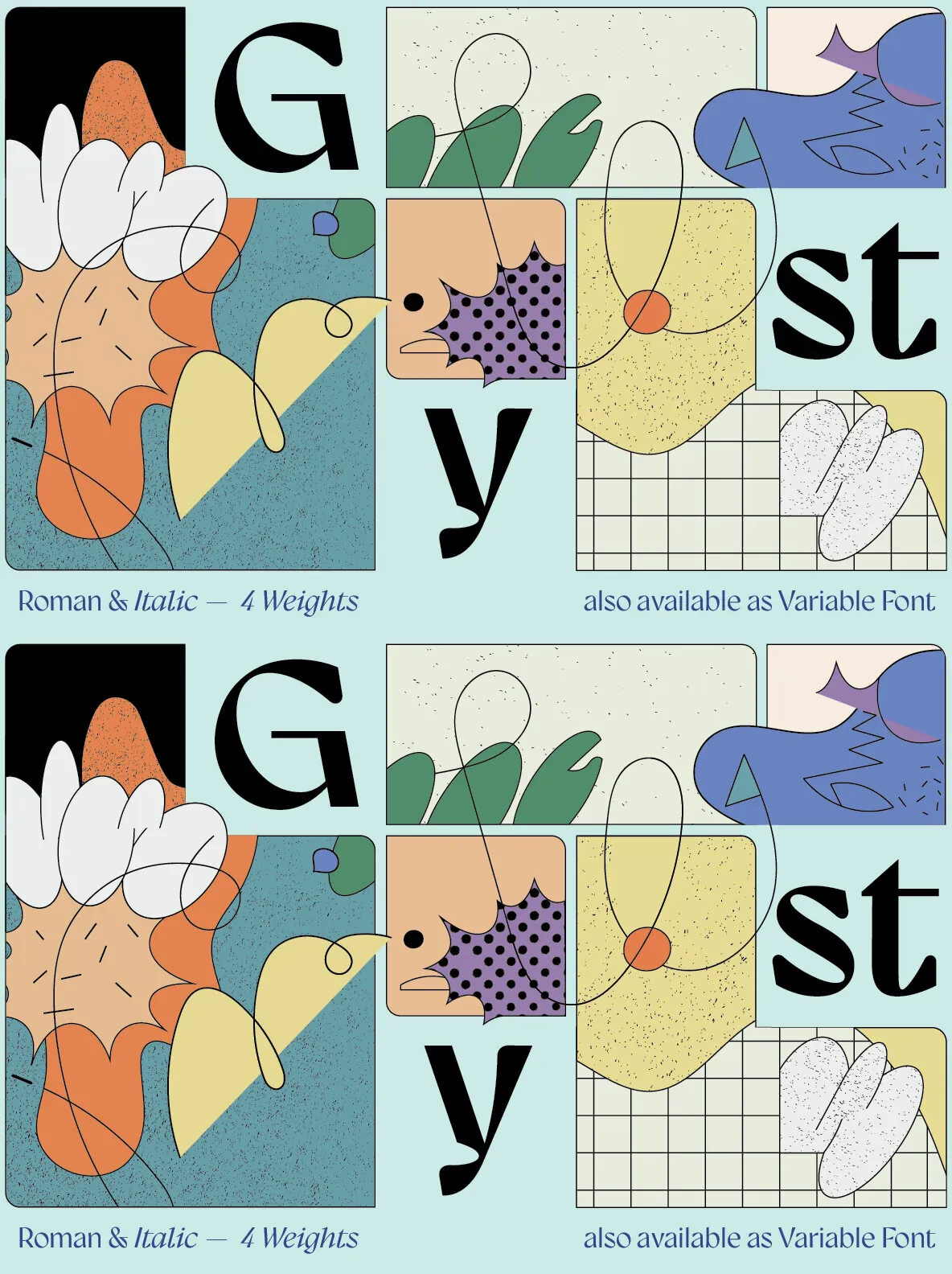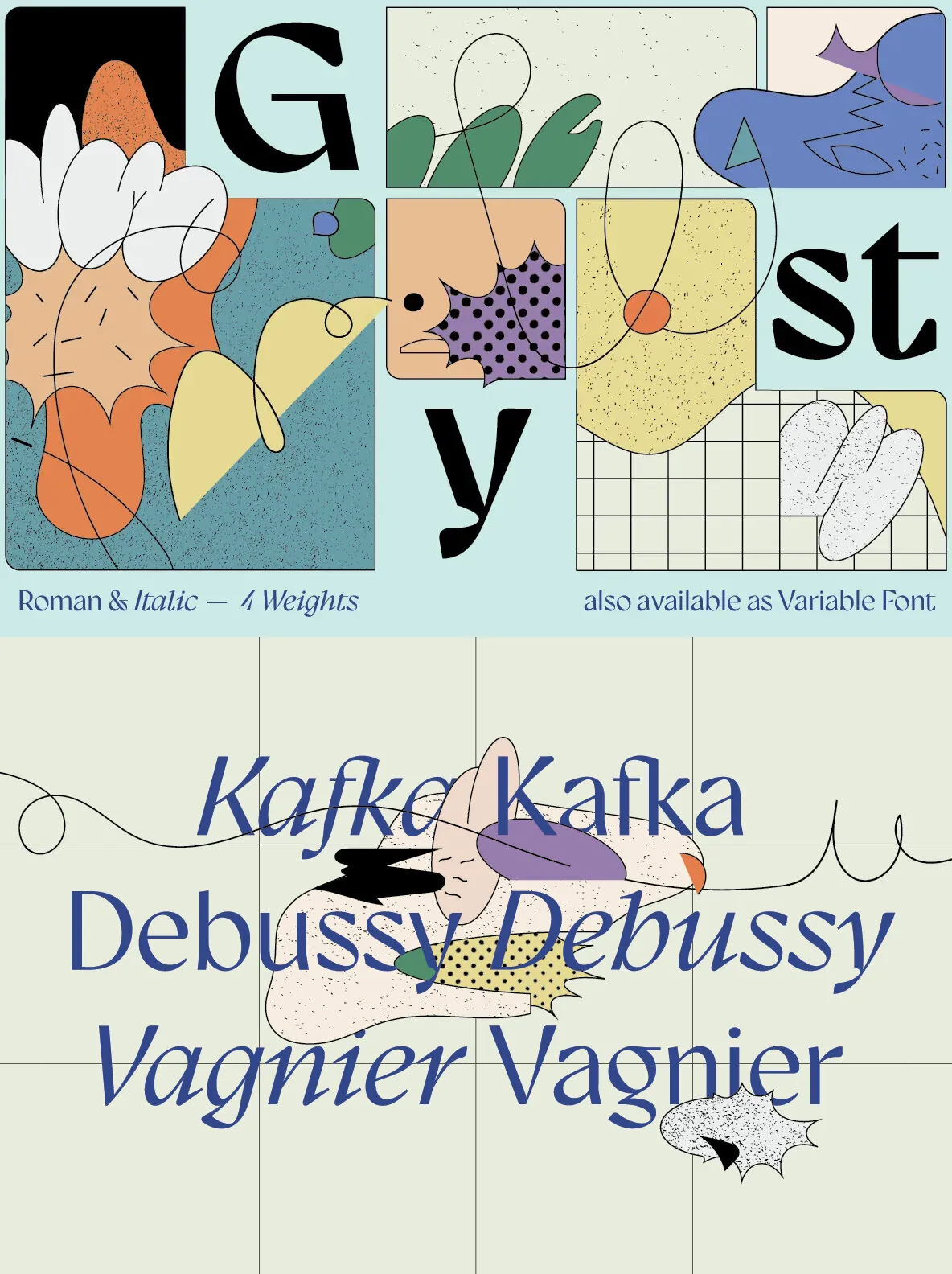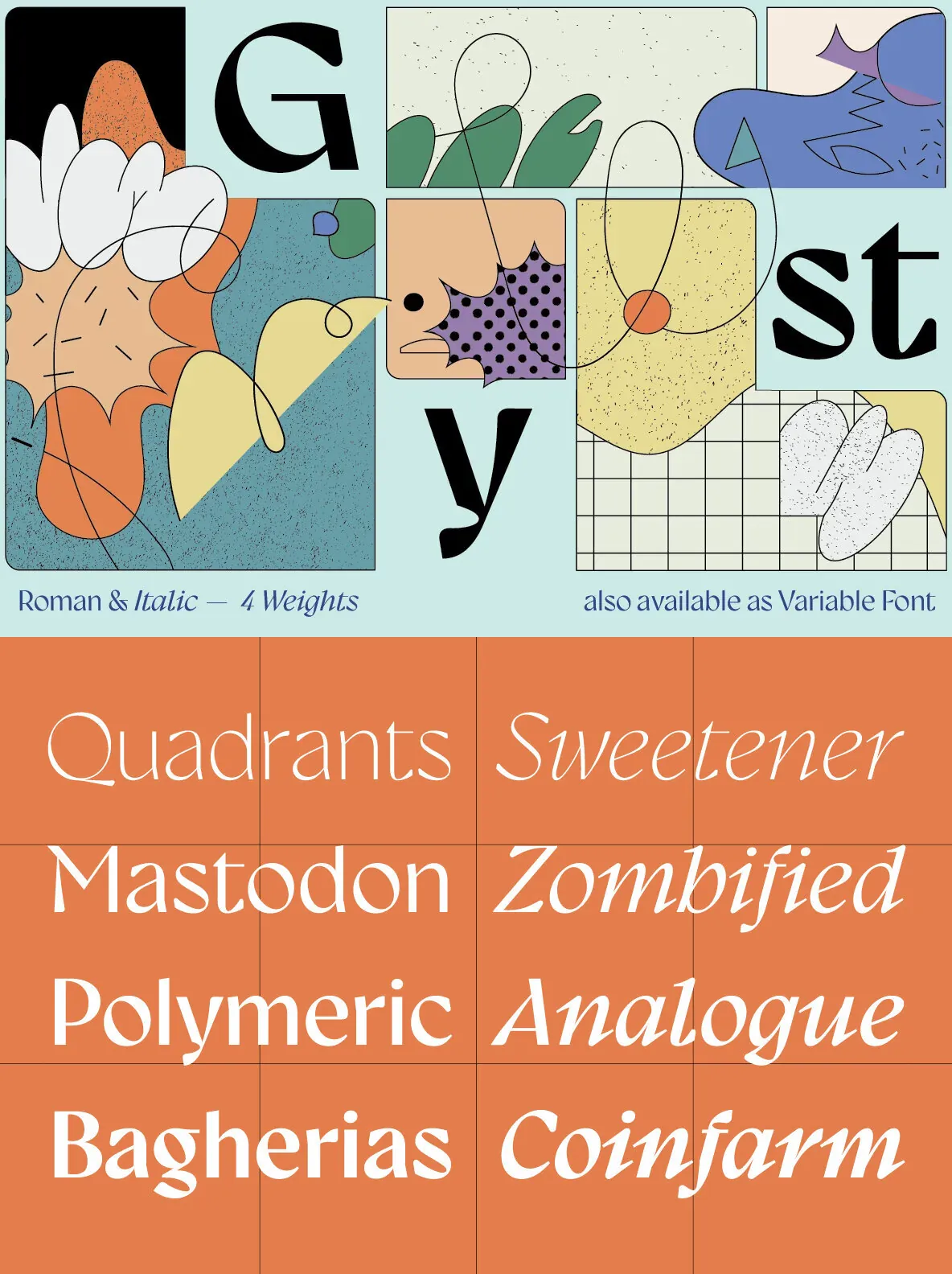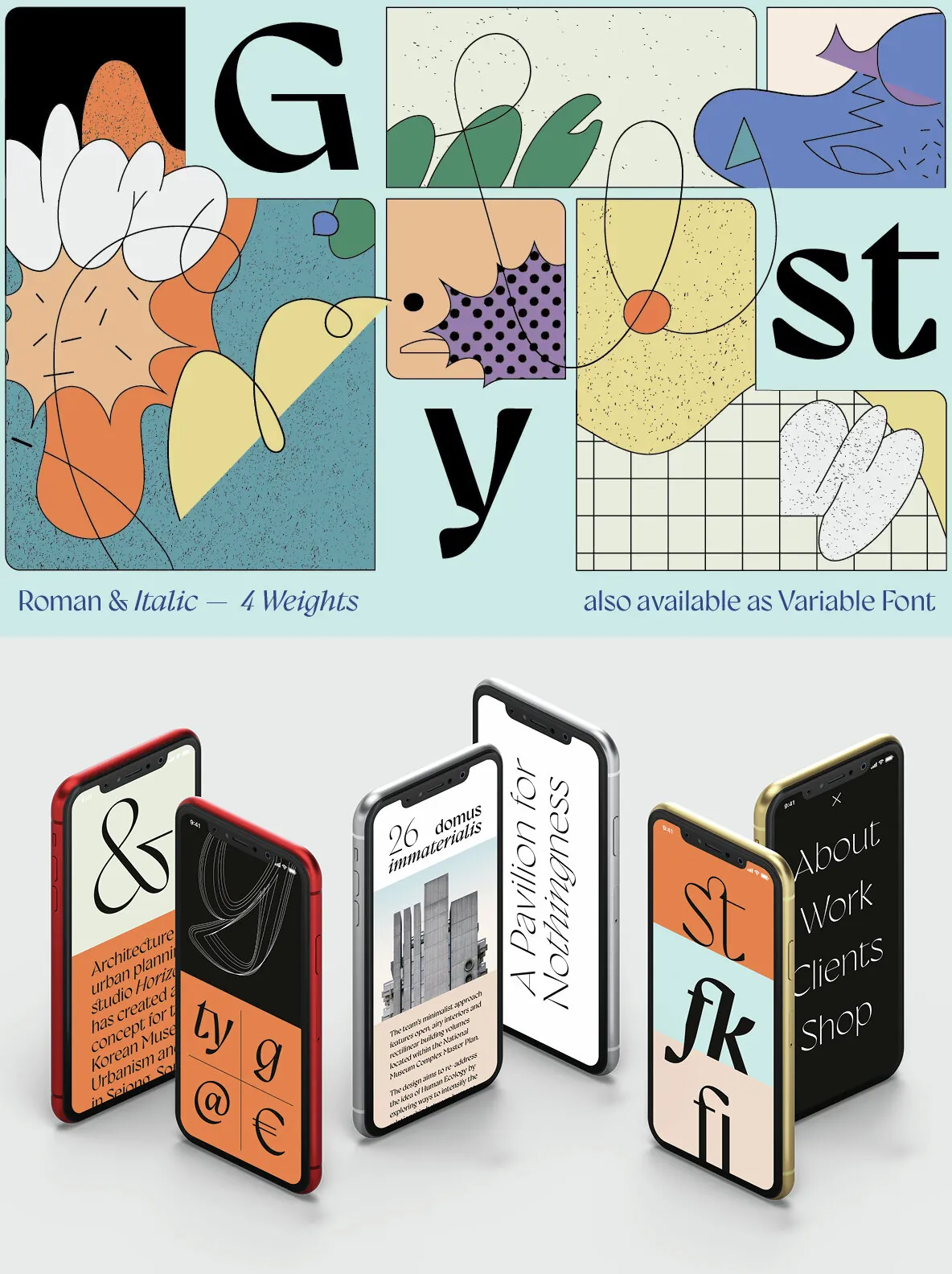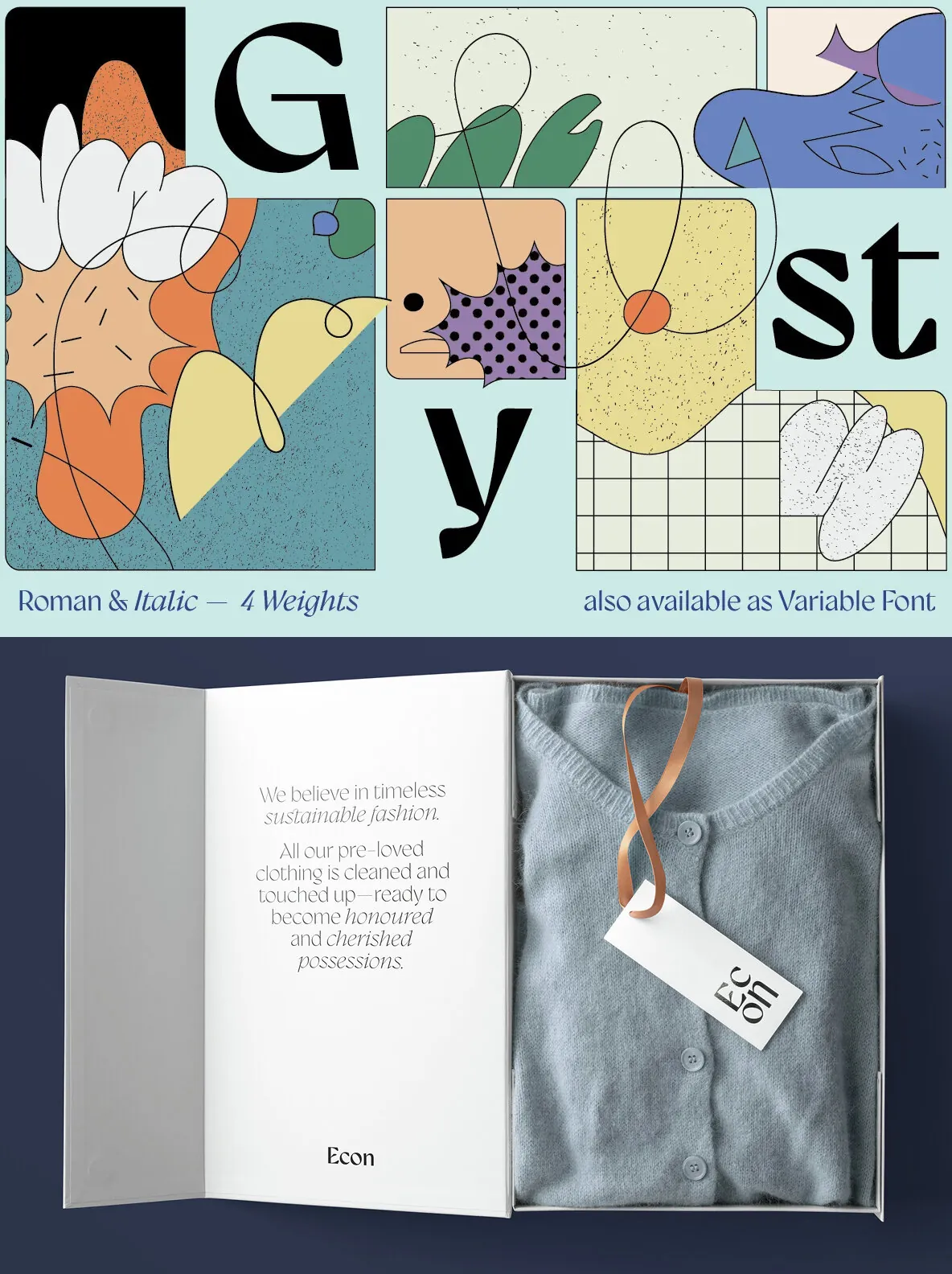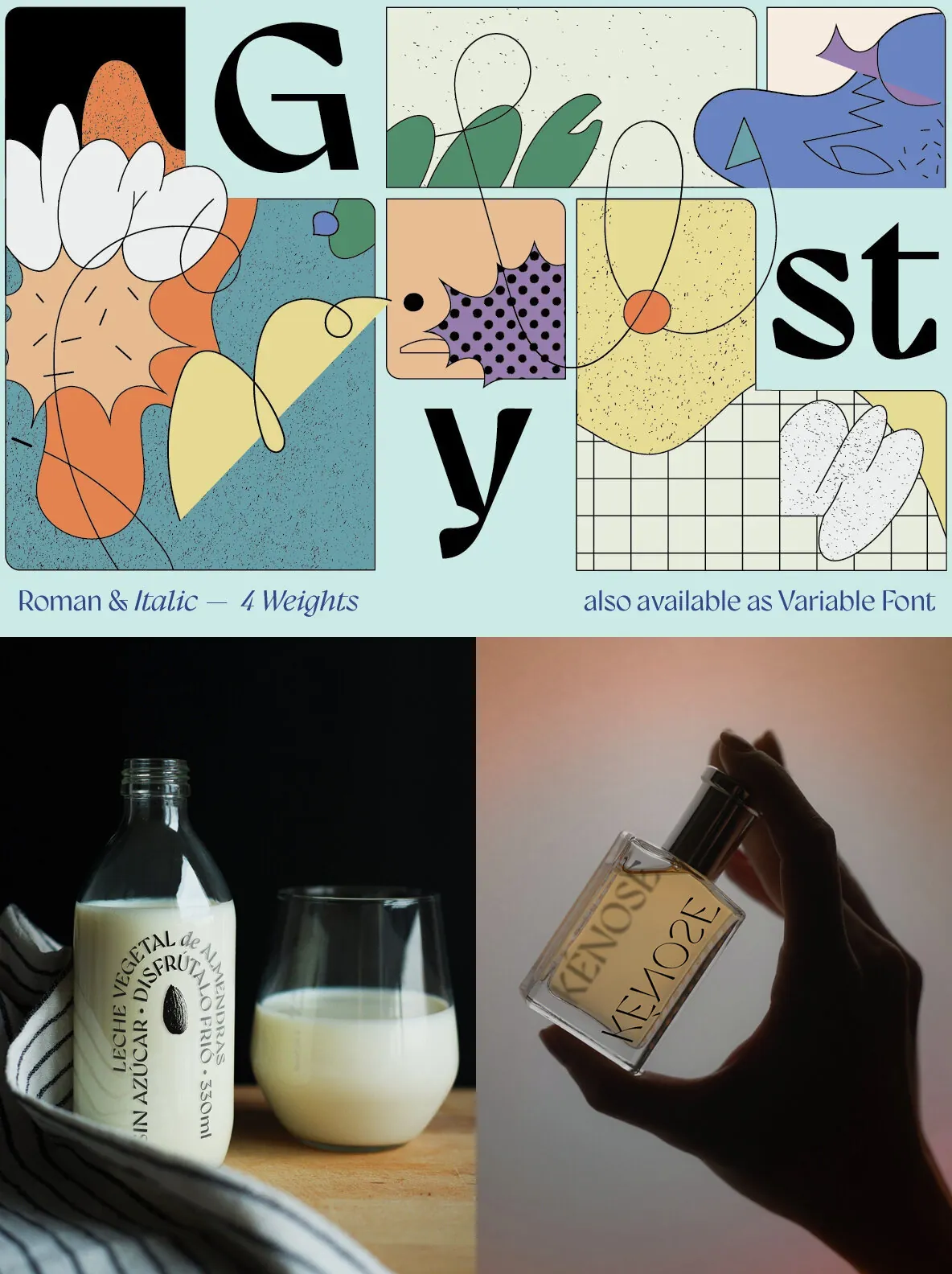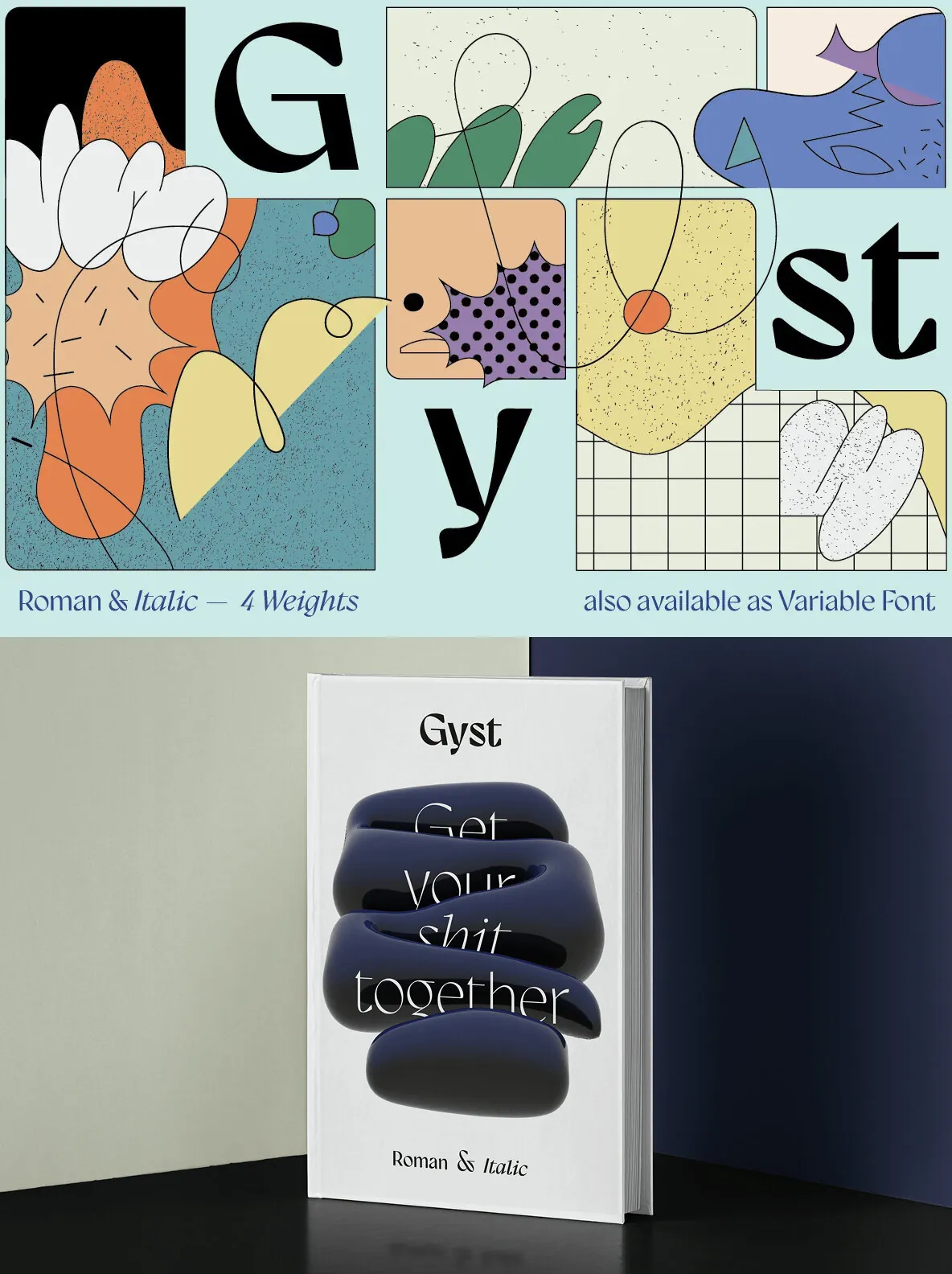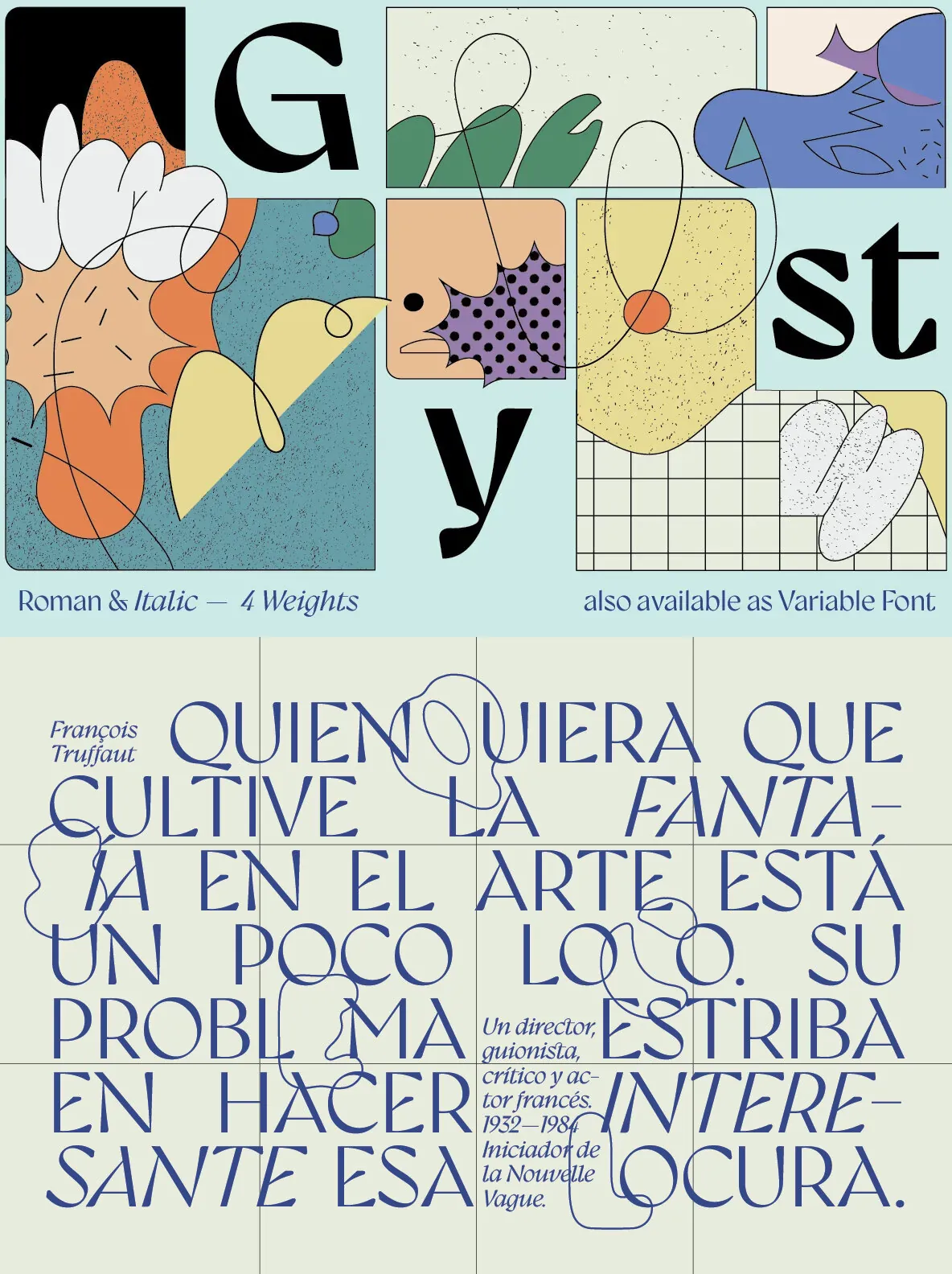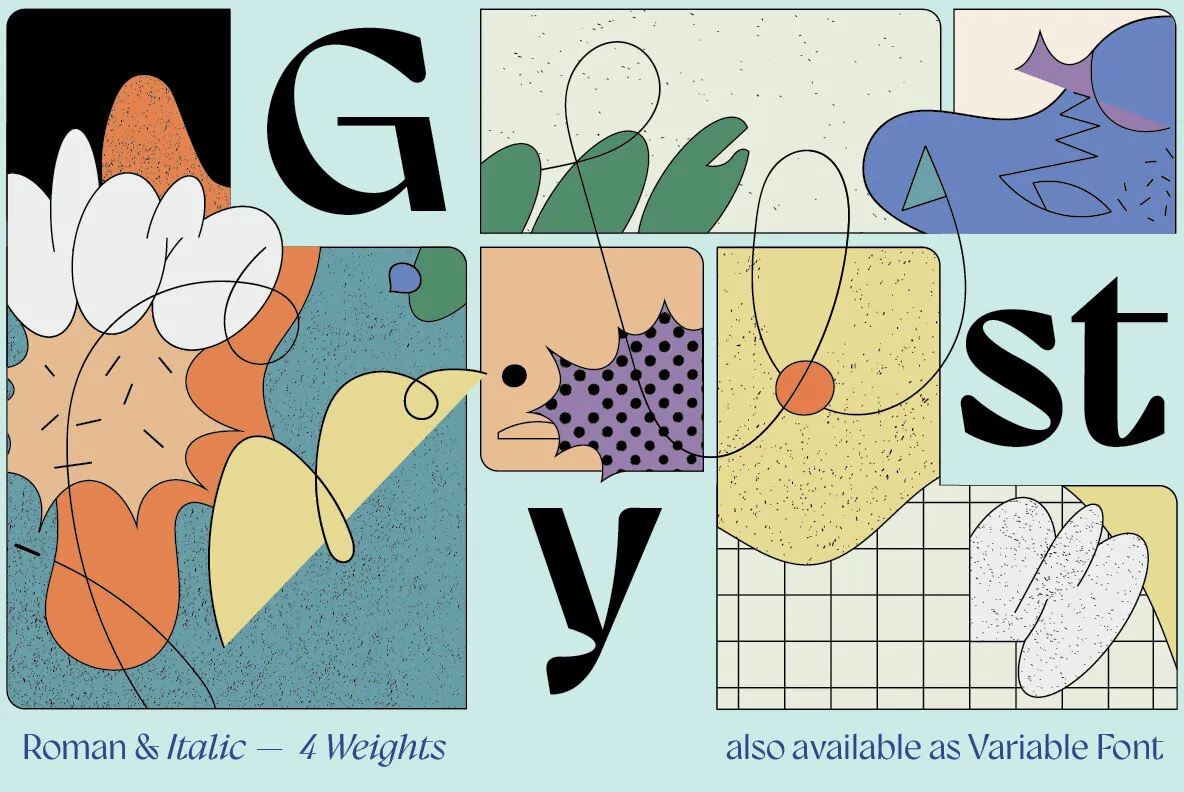
Gyst Font
Gyst — Neo-humanist poise, lively italics
A neo-humanist sans serif by phospho., this typeface blends the discipline of Grotesque with hints of Antiqua. The upright styles feel classic and steady, while the true italics introduce serifs—moving the design from a modern humanistic sans to a cursive serif presence when needed.
Contrasting strokes add richness, while razor-edged terminals keep the rhythm crisp. The result reads graceful and assured, balancing geometric precision with a touch of eccentricity that stays controlled on the page.
Use it for body text or for display. The upright and italic styles work as a pair, and the autonomous cursive posture makes a strong counterpoint to the upright. Gyst comes in four upright and italic static weights, all equipped with a whole lot of Alternates and Ligatures. It is also available as Variable Font.